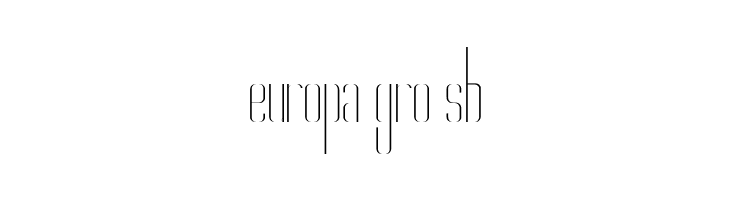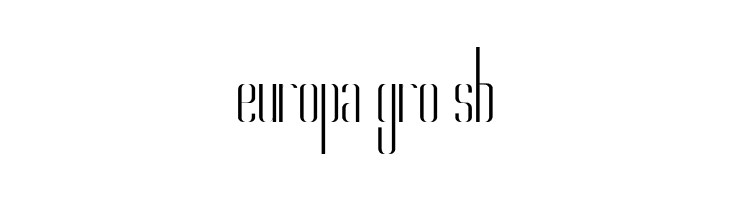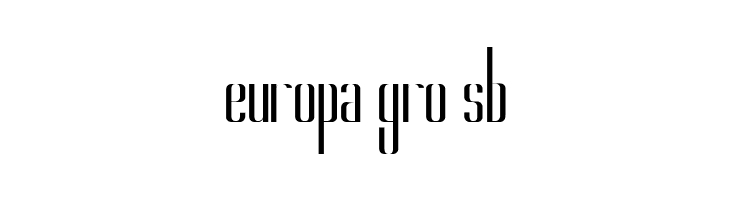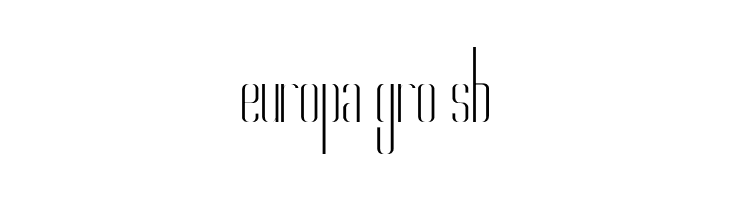
• Gorgeous Bold
A tall, narrow font with high contrast and elegant style.
• Gorgeous ExtraBold
A sleek, modern font with elongated, narrow letterforms and high contrast strokes.
• Gorgeous ExtraLight
An ultra-thin, modern font with tall, narrow letterforms.
• Gorgeous Heavy
A tall, narrow display font with high contrast and elegant styling.
• Gorgeous Light
A sleek, elongated typeface with thin, consistent strokes and a modern aesthetic.
• Gorgeous Medium
A sleek, elongated font with a modern and elegant design.
• Gorgeous Regular
A tall, elegant font with narrow, elongated letterforms and a modern aesthetic.
• Gorgeous SemiBold
A modern, elegant font with elongated, narrow characters and high contrast.
• Gorgeous SuperBlack
A bold, high-contrast typeface with elongated, narrow letterforms.
• Gorgeous Thin
An ultra-thin, elegant font with elongated characters and a modern aesthetic.